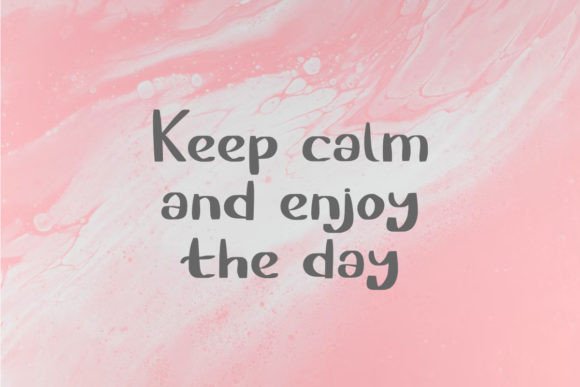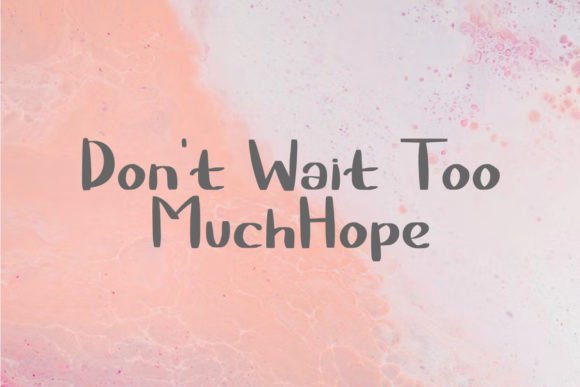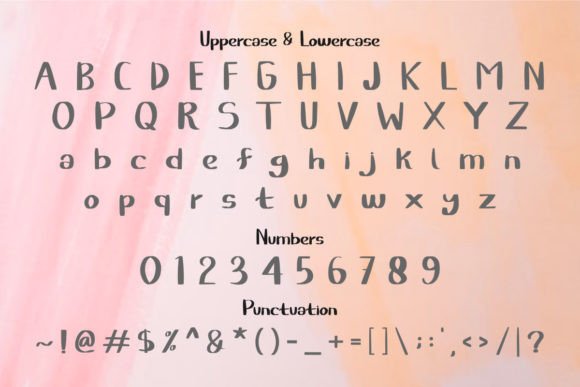
Introduction to Foma Kids Font
Have you ever been working on a creative project, pouring your heart and soul into it, only to feel like it’s missing that extra special something? That’s when I discovered the Foma Kids Font – a delightful display font that brings an undeniable touch of joy to any design. Its quirky charm is contagious, and I couldn’t help but fall in love with it from the very start.
As a designer, you’re always on the lookout for high-quality design resources that can elevate your work and make it stand out from the crowd. The Foma Kids Font is an excellent addition to your design arsenal, offering a free download with a transparent background that makes it easy to integrate into your projects.
Key Features of Foma Kids Font
- High-quality design resource ideal for creative projects, including children’s books, educational materials, and more.
- Features a transparent background, making it easy to use in various design applications and allowing for seamless integration with other elements.
- Designed with a clear and playful style, perfect for use in a variety of creative projects, from children’s party invitations to educational materials.
- Includes a range of characters and glyphs, including letters, numbers, and symbols, to provide a comprehensive design solution.
Honest Review: Foma Kids Font
As a designer, I’m always on the lookout for high-quality design resources that can elevate my creative projects. Recently, I stumbled upon the Foma Kids Font, and I must say, it’s been a game-changer for me.
Here are some things that work well:
- ✨ The font is incredibly versatile, making it perfect for a wide range of creative projects, from children’s books to educational materials.
- ✨ The high-quality design and attention to detail make it a standout among other free fonts.
- ✨ The transparent background option gives me the flexibility to use it with any background image or color.
- ⚠️ The font is a bit limited in terms of font sizes, which can make it challenging to use in certain design scenarios.
- ⚠️ Some users may find the font a bit too playful or childish for certain projects, depending on their design style.
Overall, I’m thoroughly impressed with the Foma Kids Font, and I’d highly recommend it to any designer looking for a high-quality, free design resource. With a little creativity, this font can be used to create truly amazing designs that engage and inspire your audience.
Designing with Foma Kids Font
Foma Kids Font is a high-quality design resource ideal for creative projects, particularly those focused on children. Its playful and vibrant style makes it perfect for illustrations, educational materials, and fun designs. You can download it for free, and it comes with a transparent background, making it easy to use in various design applications.
Tips for Getting the Most Out of Foma Kids Font
Use Foma Kids Font in combination with other design elements, such as illustrations and graphics, to create visually appealing designs. Experiment with different font sizes and colors to add depth and interest to your designs. You can also use Foma Kids Font to create custom logos, icons, and branding materials.
Foma Kids Font is ideal for various design projects, including children’s books, educational materials, and fun designs. You can use it for social media graphics, posters, invitations, and other promotional materials. Its high-quality design and transparent background make it a versatile and convenient design resource.
Yes, Foma Kids Font is a high-quality design resource that’s perfect for creative projects. Its clear, legible characters and transparent background make it ideal for use in logos, branding, and other visual design applications.